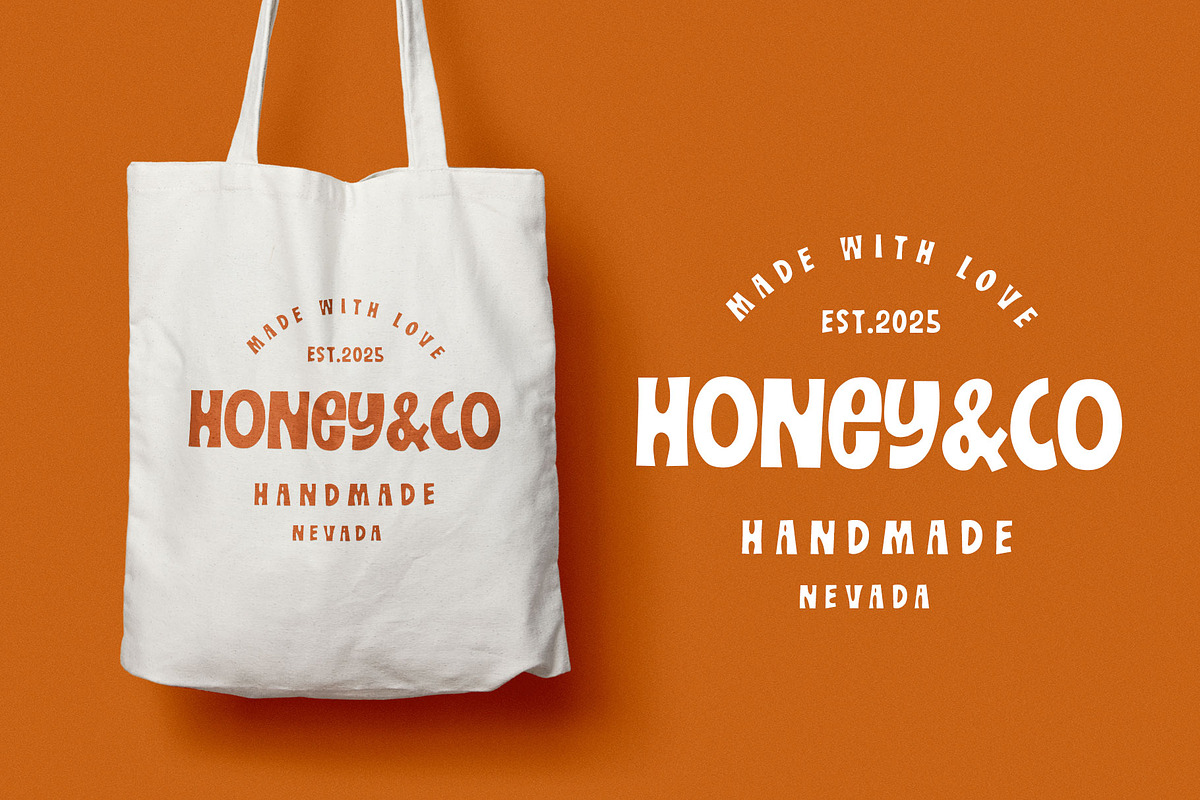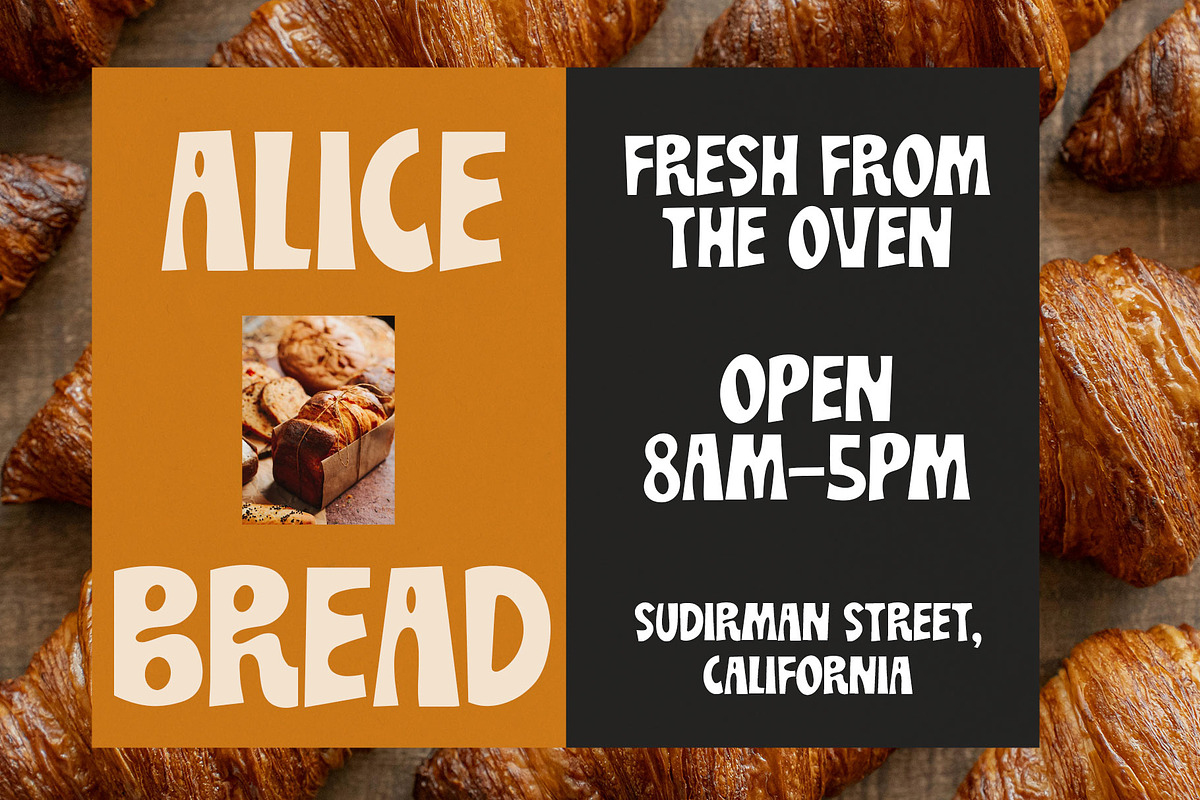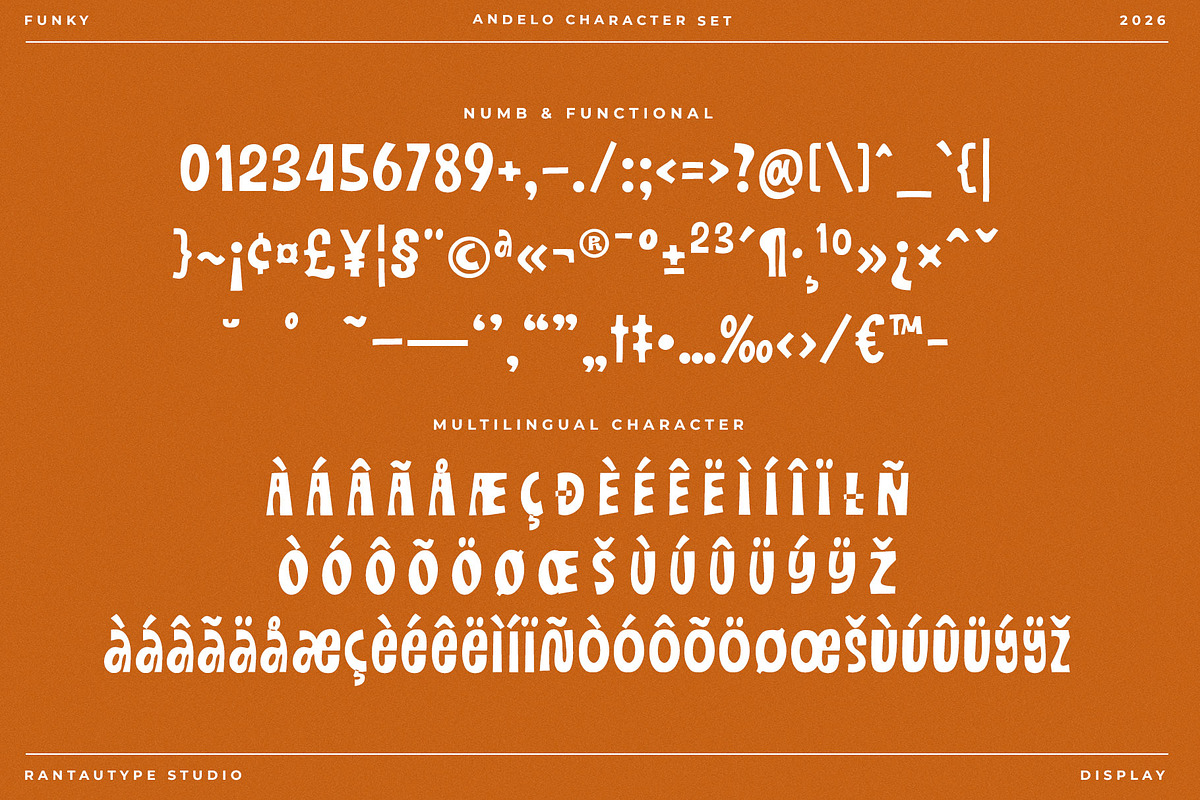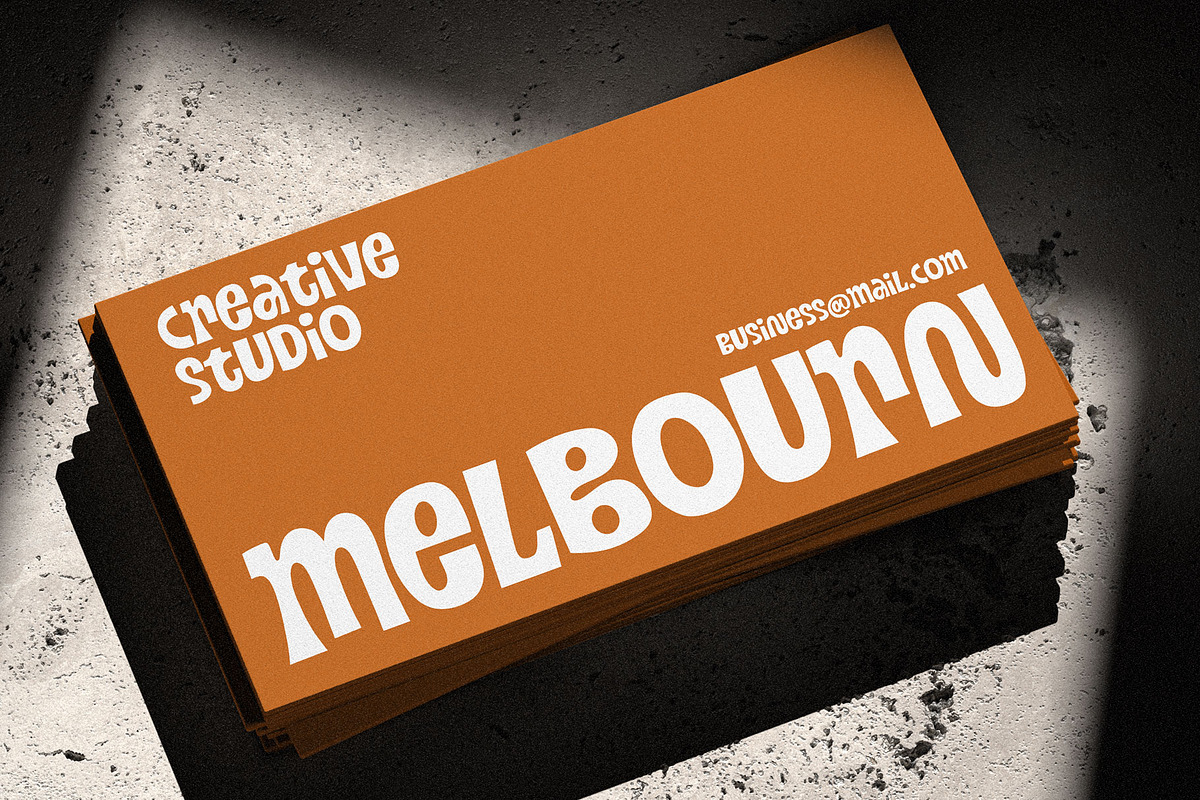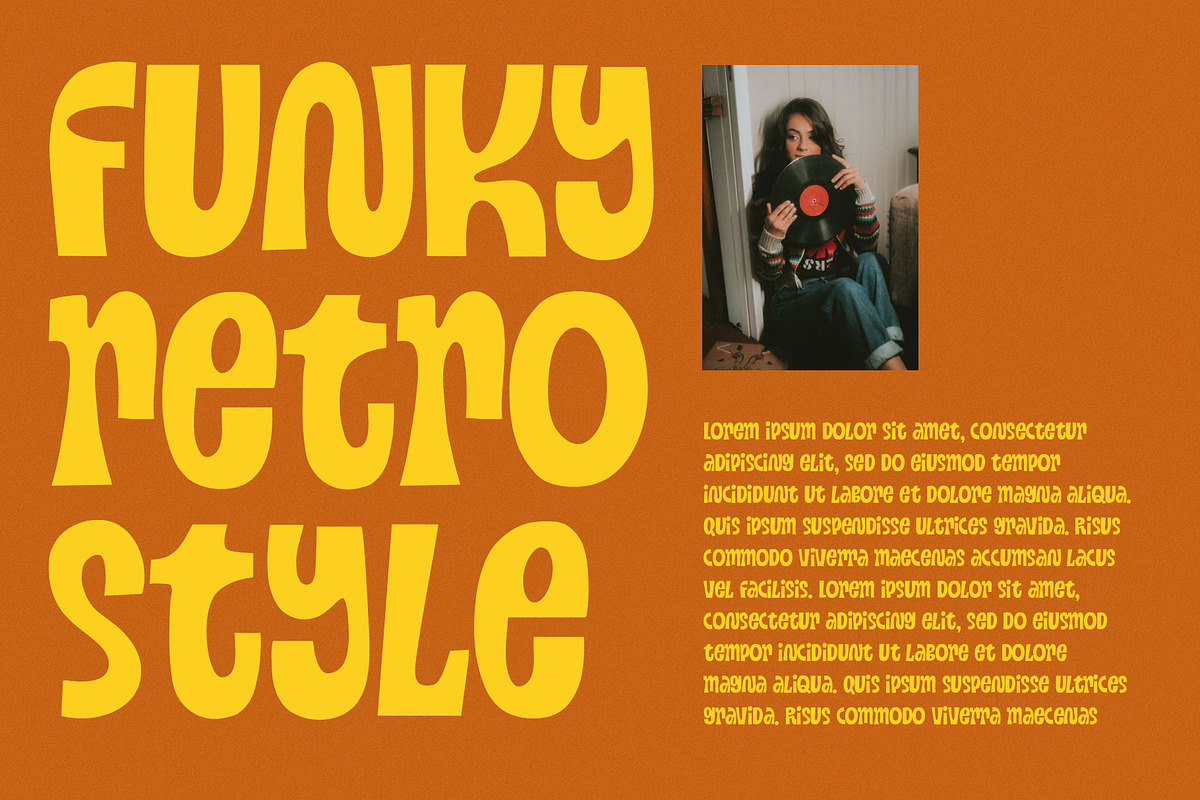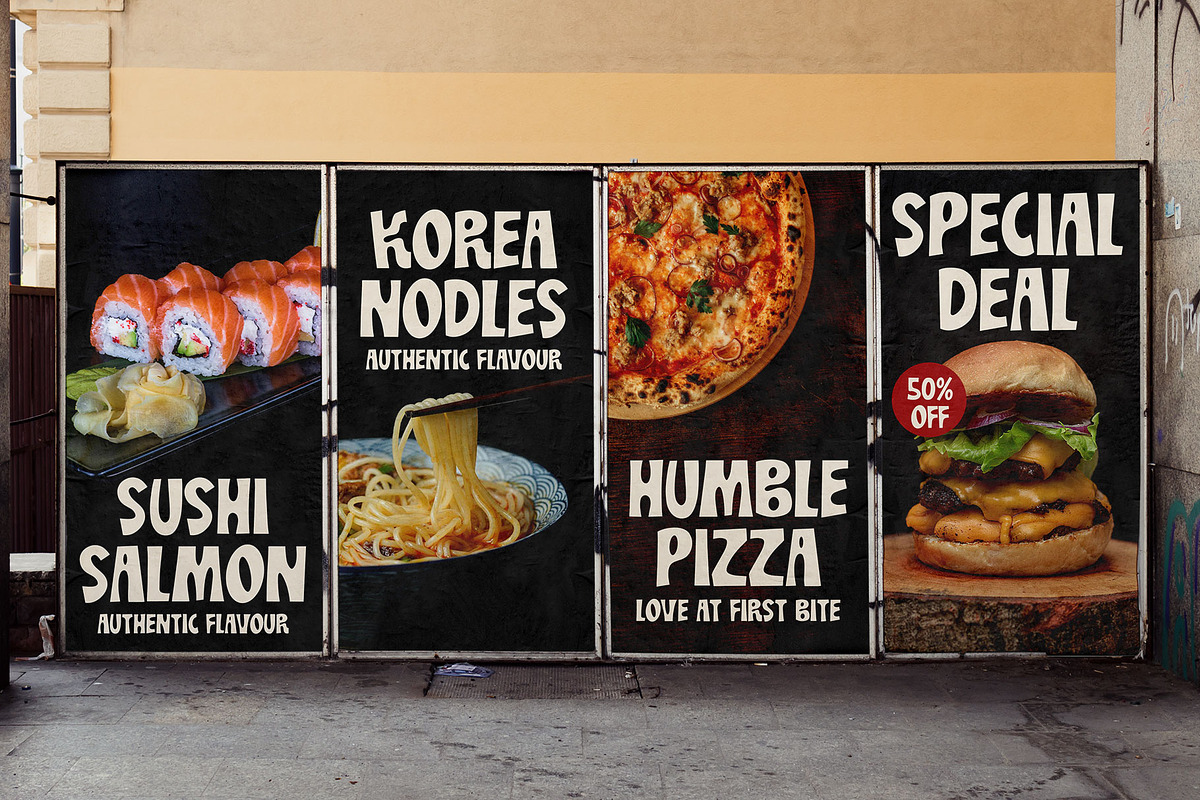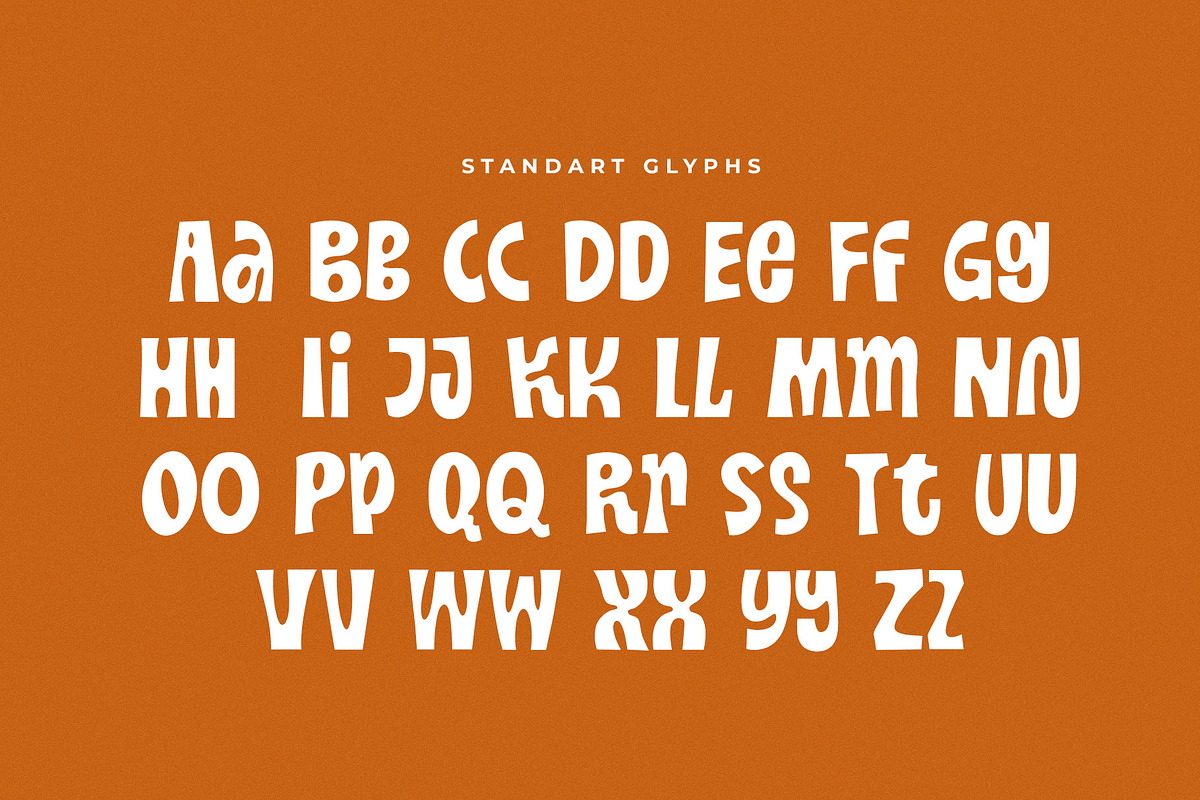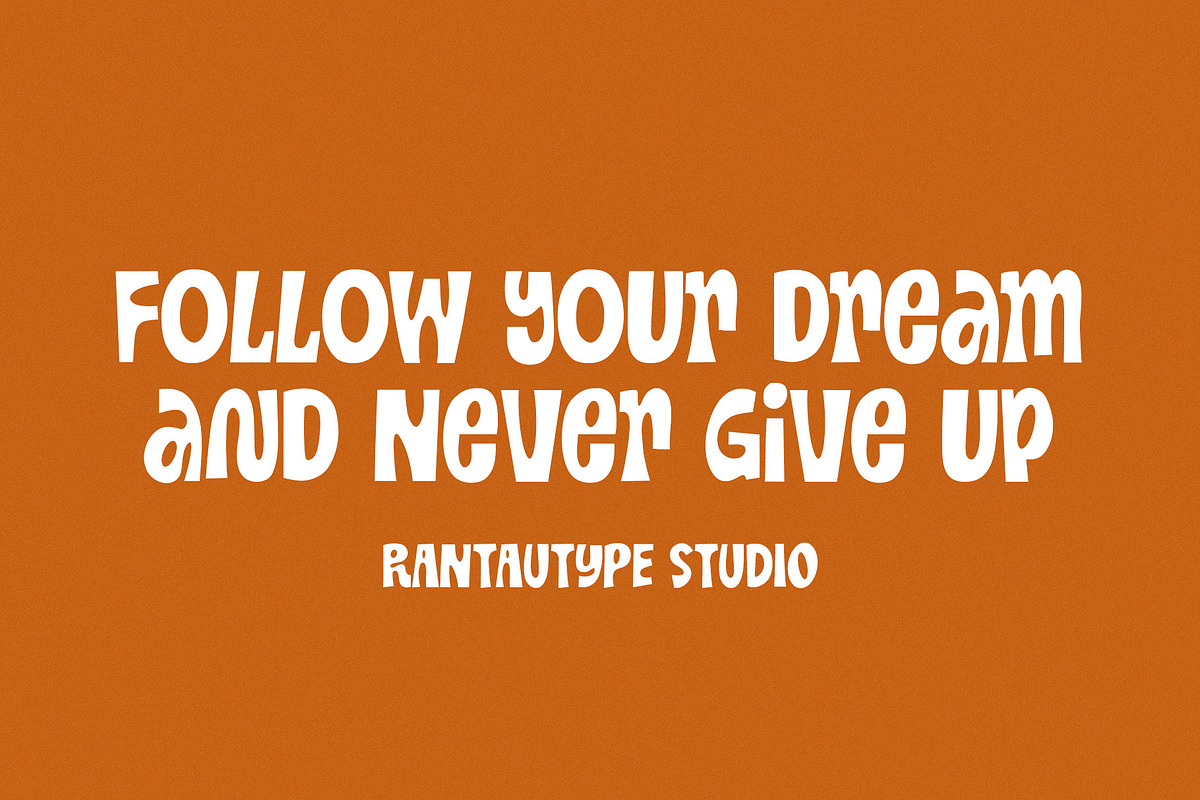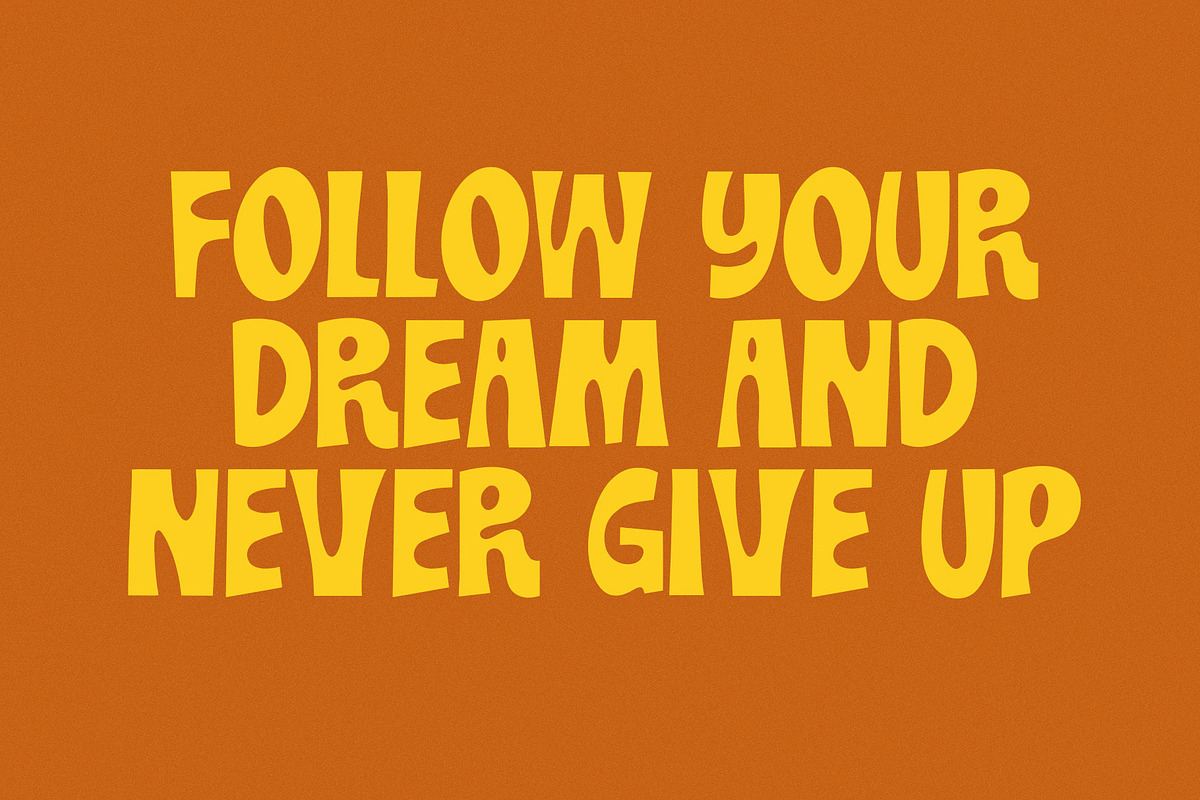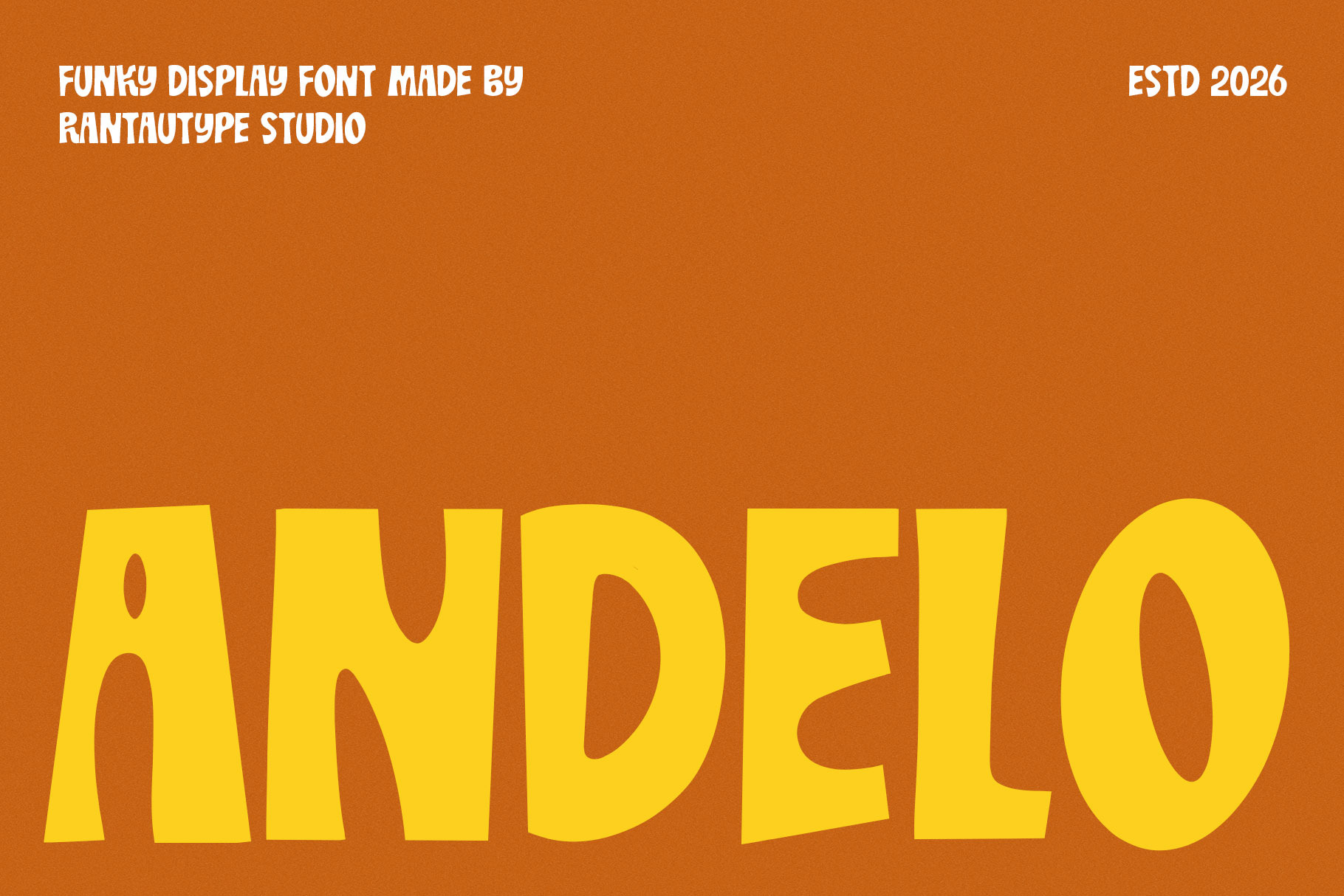
Andelo Funky Display Font
Andelo is funky display font designed to capture attention with its bold personality, playful shapes, and unconventional style. Andelo is a perfectly choice for any creative endeavor, creating, modern, lifestyle design such as logotype, title, cover, branding, invitations, wedding designs, display and magazine, social media posts, advertisements, printed quotes, product packaging, corporate brand, product designs, labels, photography, watermarks, special events and any other project with funky touch.
- Standart Glyphs
- Alternate and ligature
Fonts include Multilingual Character for: Afrikaans, Albanian, Asu, Basque, Bemba, Bena, Breton, Chiga, Cornish, Dutch, English, Estonian, Filipino, Finnish, Friulian, Galician, Gusii, Indonesian, Irish, Italian, Kabuverdianu, Kalenjin, Kinyarwanda, Luo, Luxembourgish, Luyia, Machame, North, Oromo, Portuguese, Quechua, Romansh, Rombo, Rundi, Rwa, Samburu, Sango, Sangu, Scottish, Gaelic, Sena, Shambala, Shona, Soga, Somali, Spanish, Swahili, Swedish, Swiss, German.